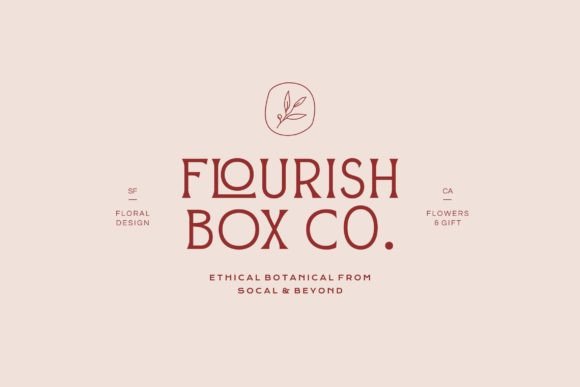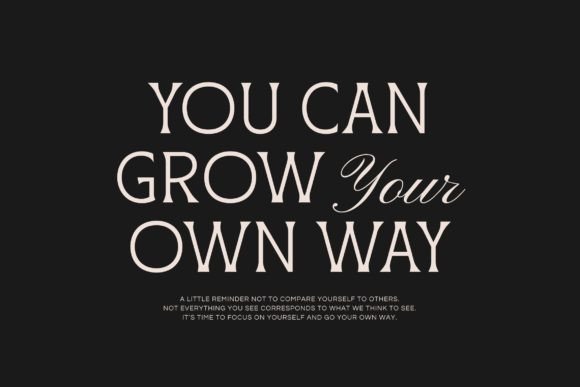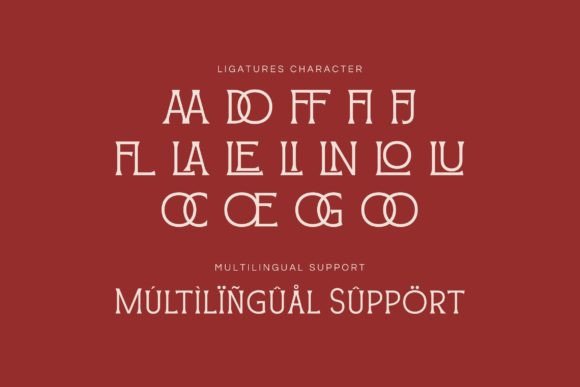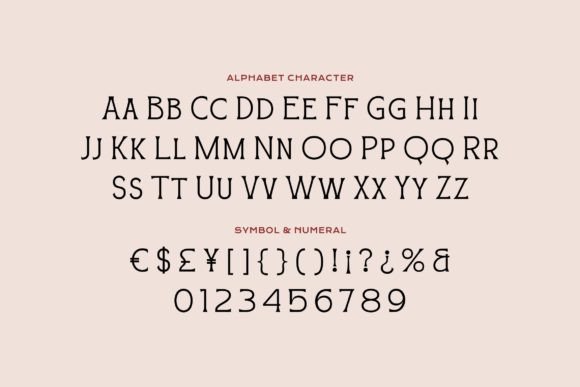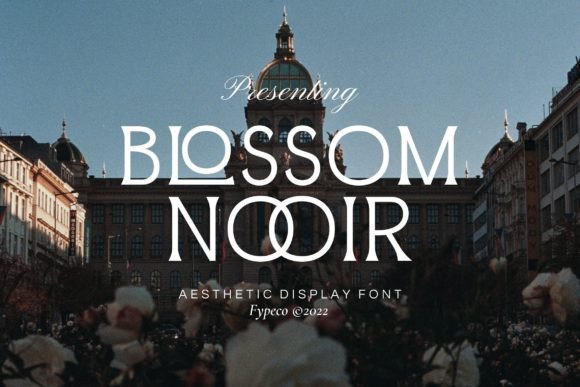
Introducing Blossom Noir Font: Elevate Your Designs with Elegance and Sophistication
In the world of typography, a font can make or break a design. For designers and crafters looking to add a touch of elegance and sophistication to their projects, Blossom Noir Font is an excellent choice. This aesthetic serif display font, complete with ligatures, is perfect for creating stunning logos, quotes, invitations, posts, blog posts, branding projects, magazine imagery, typography, and much more.
What Makes Blossom Noir Font Stand Out?
Blossom Noir Font boasts a unique blend of classic and modern elements, making it a versatile and eye-catching addition to any design. Its serif design adds a touch of sophistication, while its ligatures provide a creative and artistic flair. The font’s elegant lines and curves make it perfect for designs that require a high level of refinement and poise.
Key Features of Blossom Noir Font
- Serif Display Font: Blossom Noir Font features a classic serif design, perfect for creating visually appealing headings and titles.
- Ligatures: The font includes ligatures, which add a creative and artistic touch to your designs.
- Elegant Lines and Curves: The font’s elegant lines and curves make it perfect for designs that require a high level of refinement and poise.
- Versatile: Blossom Noir Font is suitable for a wide range of design projects, from logos and invitations to blog posts and magazine imagery.
Blossom Noir Font is an excellent choice for designers and crafters looking to elevate their designs with elegance and sophistication. Whether you’re working on a branding project, creating social media graphics, or designing a magazine, this font is sure to impress. Its versatility and unique features make it an excellent addition to any design toolkit.
How to Use Blossom Noir Font in Your Designs
Using Blossom Noir Font in your designs is easy. Here are a few ideas to get you started:
- Logos: Create stunning logos that make a lasting impression with Blossom Noir Font.
- Invitations: Add a touch of elegance to your invitations with this beautiful font.
- Social Media Graphics: Create eye-catching social media graphics that stand out from the crowd.
- Blog Posts: Add a touch of sophistication to your blog posts with Blossom Noir Font.
- Magazine Imagery: Use this font to create visually appealing magazine imagery that captures readers’ attention.
Tips for Getting the Most Out of Blossom Noir Font
Here are a few tips for getting the most out of Blossom Noir Font:
- Experiment with Different Sizes: Play around with different font sizes to find the perfect balance for your design.
- Pair with Other Fonts: Pair Blossom Noir Font with other fonts to create a unique and visually appealing design.
- Use Ligatures: Take advantage of the font’s ligatures to add a creative and artistic touch to your designs.
Blossom Noir Font is an excellent choice for designers and crafters looking to add a touch of elegance and sophistication to their designs. With its unique blend of classic and modern elements, ligatures, and elegant lines and curves, this font is perfect for creating stunning logos, quotes, invitations, posts, blog posts, branding projects, magazine imagery, typography, and much more. So why wait? Download Blossom Noir Font today and elevate your designs to the next level!